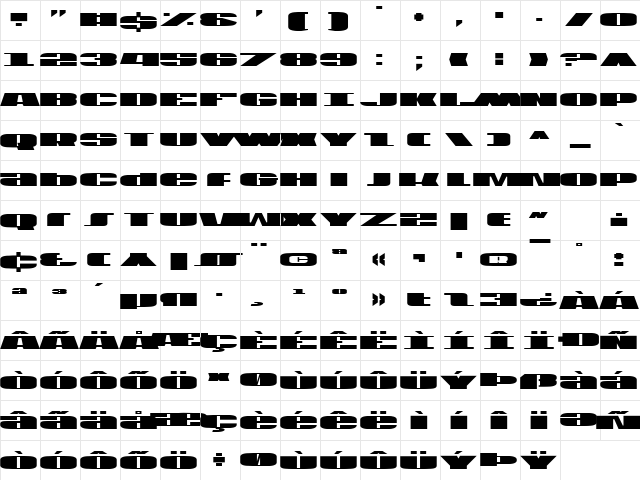
U.S.A. Regular
U.S.A. Family
Design Context for U.S.A.
U.S.A. is a composed and adaptable typeface that performs quietly and consistently across a wide range of design contexts.